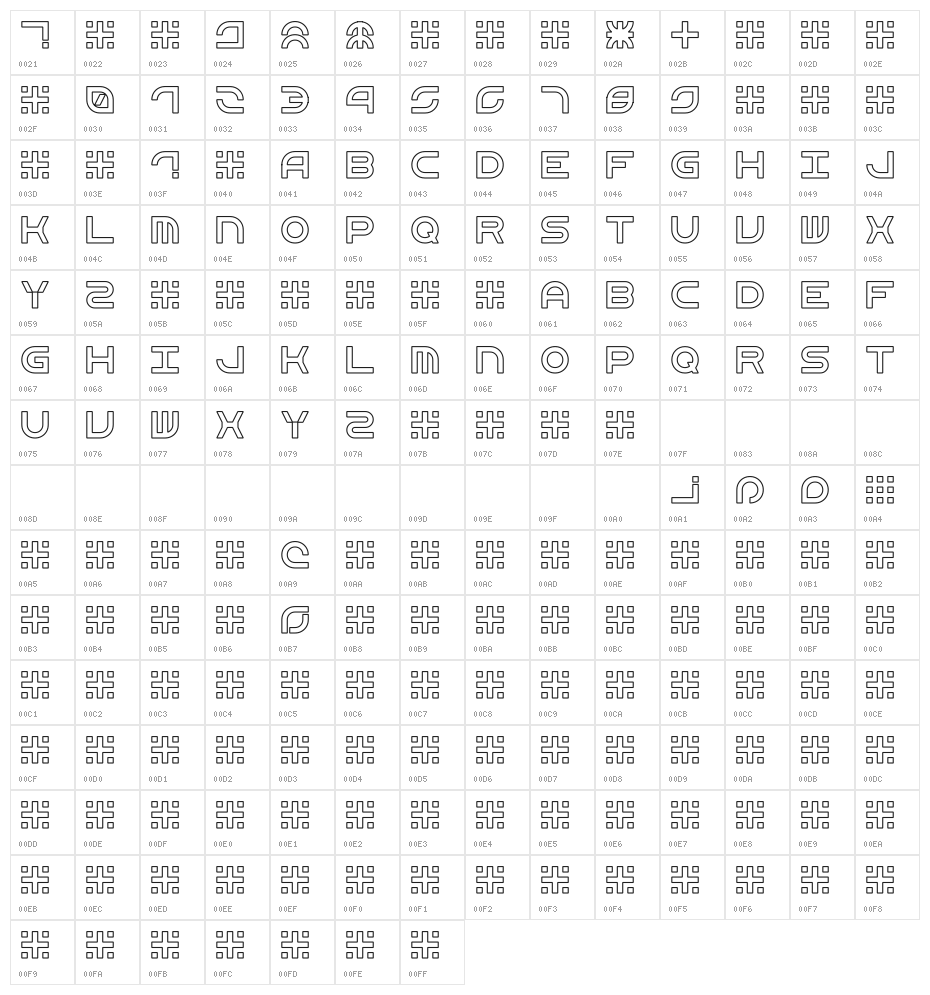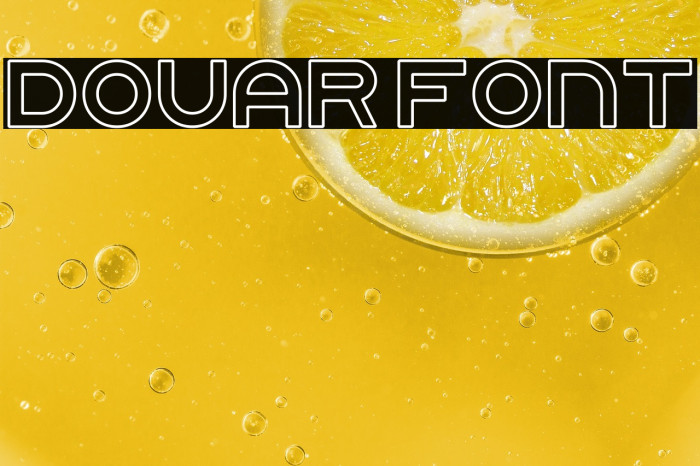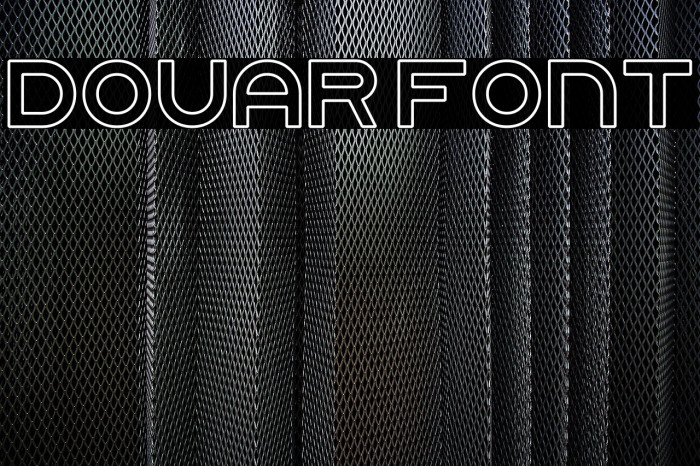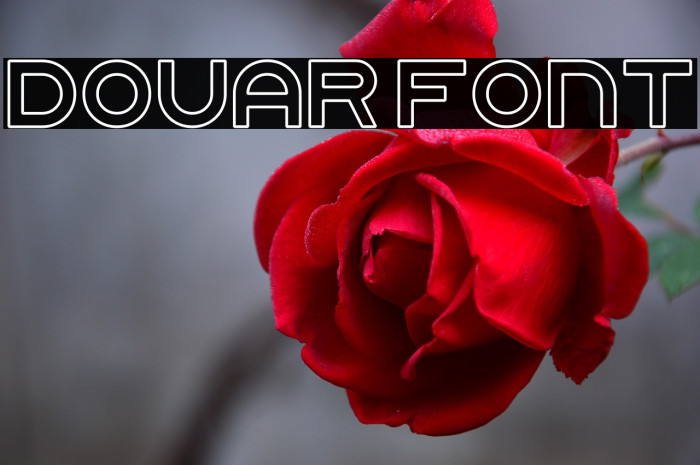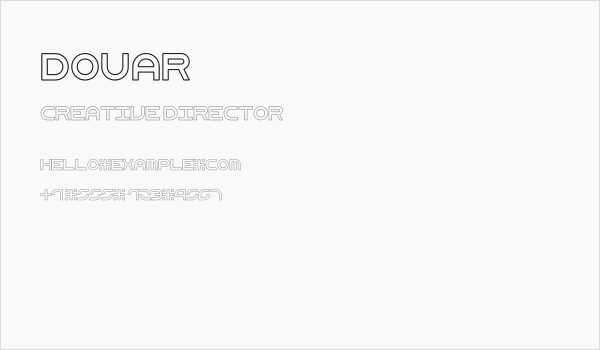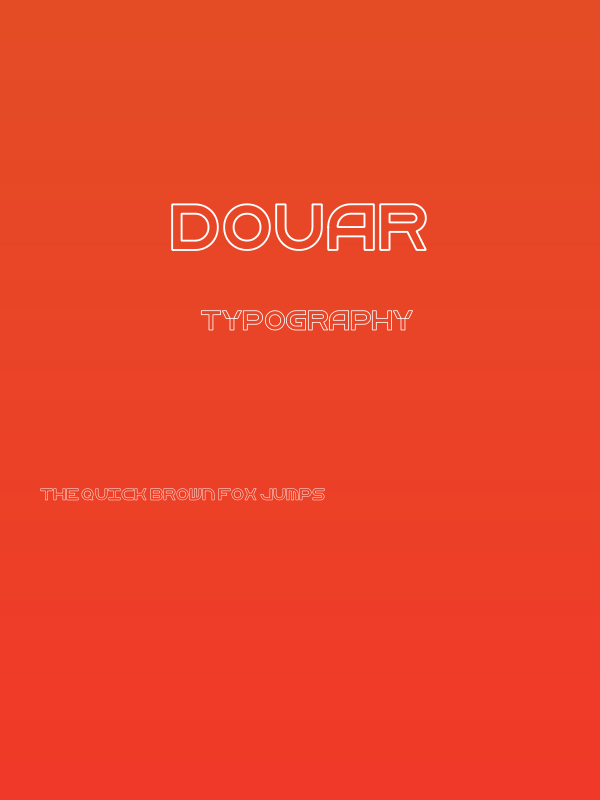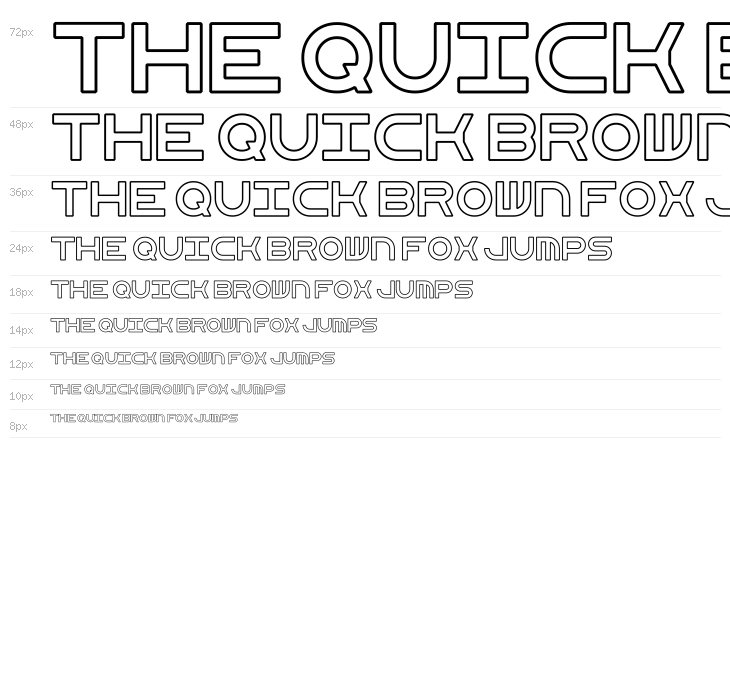
Douar Font
Douar Description
This font features a futuristic and geometric design, characterized by its hollow, outline style. The letters are constructed with clean, sharp lines and rounded edges, giving it a modern and sleek appearance. The uppercase and lowercase letters maintain a consistent height, contributing to a uniform look. The numerals and special characters follow the same design principles, ensuring cohesion across the character set. This font's unique style makes it stand out, perfect for projects that require a contemporary and innovative touch.
| Proposed Projects | Ideal for technology branding, sci-fi themed projects, modern posters, and innovative product packaging. |